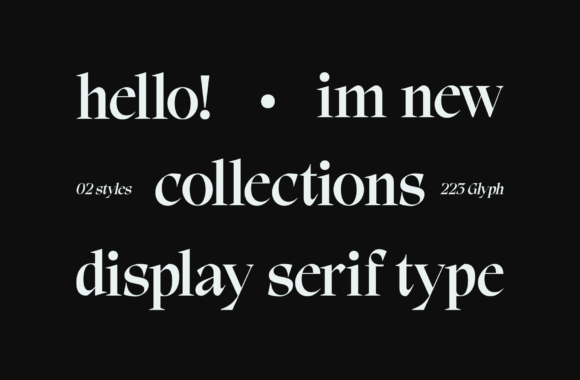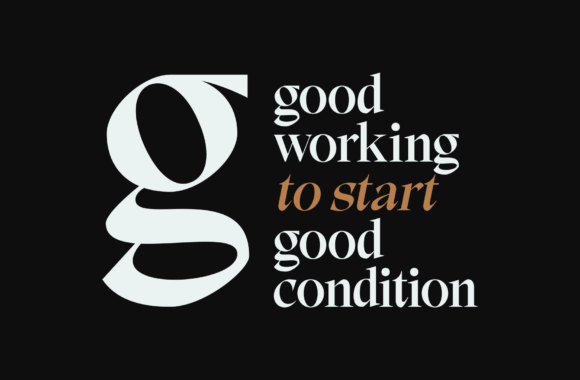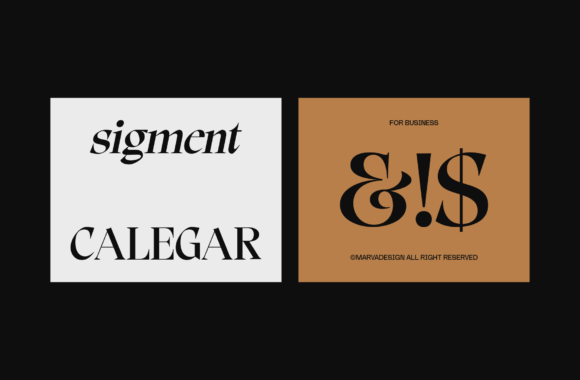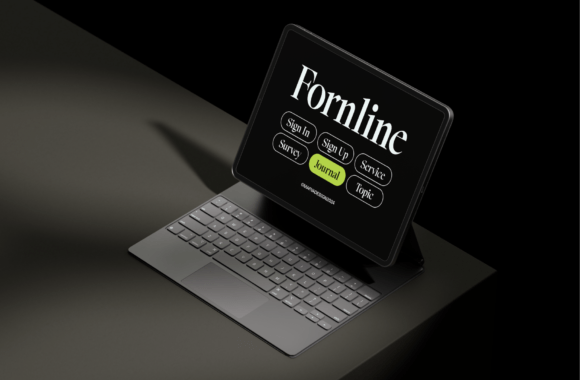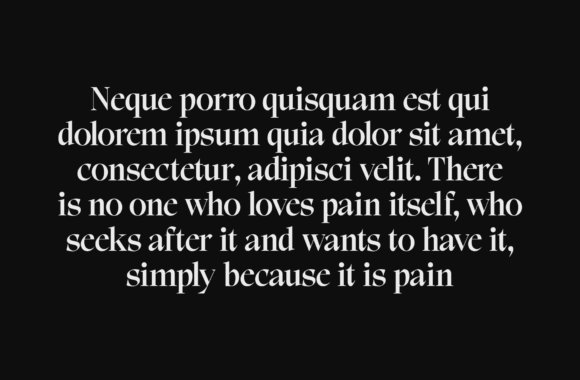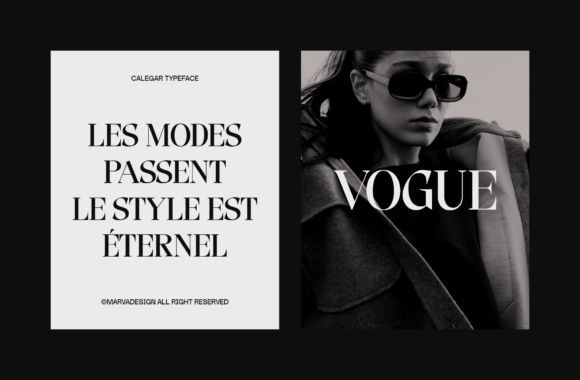
Introducing Calegar: The Ultimate Serif Display Font for Elegant Designs
In the world of typography, a font can make or break the visual appeal of a design. For designers and crafters looking for a serif display font that exudes classic elegance and modern sophistication, look no further than Calegar. This stunning font family is designed to elevate your corporate branding, brand identity projects, and professional uses with its clean and refined design.
What is Calegar Font?
Calegar is a thoughtfully crafted serif display font that combines the best of both worlds – classic elegance and modern sophistication. With its well-defined serifs and balanced letterforms, this font ensures readability while adding a touch of distinction to your designs. Whether you’re working on a print project or a digital media campaign, Calegar is the perfect choice.
Key Features of Calegar Font
- Two-Style Font Family: Calegar font family includes two styles, regular and italic, providing you with flexibility and versatility in your designs.
- Clean and Refined Design: The font’s clean and refined design makes it an excellent choice for corporate branding, brand identity projects, and other professional uses.
- Well-Defined Serifs: Calegar’s well-defined serifs and balanced letterforms ensure readability and add a touch of sophistication to your designs.
- Print and Digital Media Friendly: This font is suitable for both print and digital media, making it a great addition to your design toolkit.
Why Choose Calegar Font?
With so many fonts available, why choose Calegar? Here are a few compelling reasons:
- Unique and Distinctive: Calegar’s classic elegance and modern sophistication make it a unique and distinctive font that will set your designs apart from the rest.
- High Readability: The font’s well-defined serifs and balanced letterforms ensure high readability, making it perfect for body text and headings.
- Versatile: Calegar is a versatile font that can be used in a variety of design projects, from corporate branding to digital media.
- Elegant and Sophisticated: This font exudes elegance and sophistication, making it perfect for designers and crafters looking to add a touch of luxury to their designs.
How to Use Calegar Font in Your Designs
Using Calegar font in your designs is easy. Here are a few tips to get you started:
- Pair it with Other Fonts: Calegar pairs well with other fonts, making it easy to create stunning font combinations.
- Use it for Headings and Titles: The font’s classic elegance and modern sophistication make it perfect for headings and titles.
- Experiment with Colors: Calegar looks great in a variety of colors, so don’t be afraid to experiment and find the perfect color scheme for your design.
In conclusion, Calegar is a stunning serif display font that embodies classic elegance and modern sophistication. With its clean and refined design, well-defined serifs, and balanced letterforms, this font is perfect for designers and crafters looking to elevate their designs. Whether you’re working on a corporate branding project, a brand identity campaign, or a digital media project, Calegar is the perfect choice. So why wait? Download Calegar font today and take your designs to the next level.